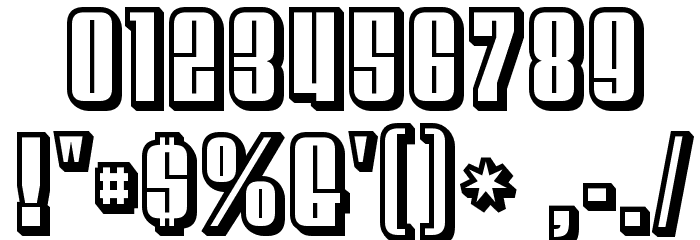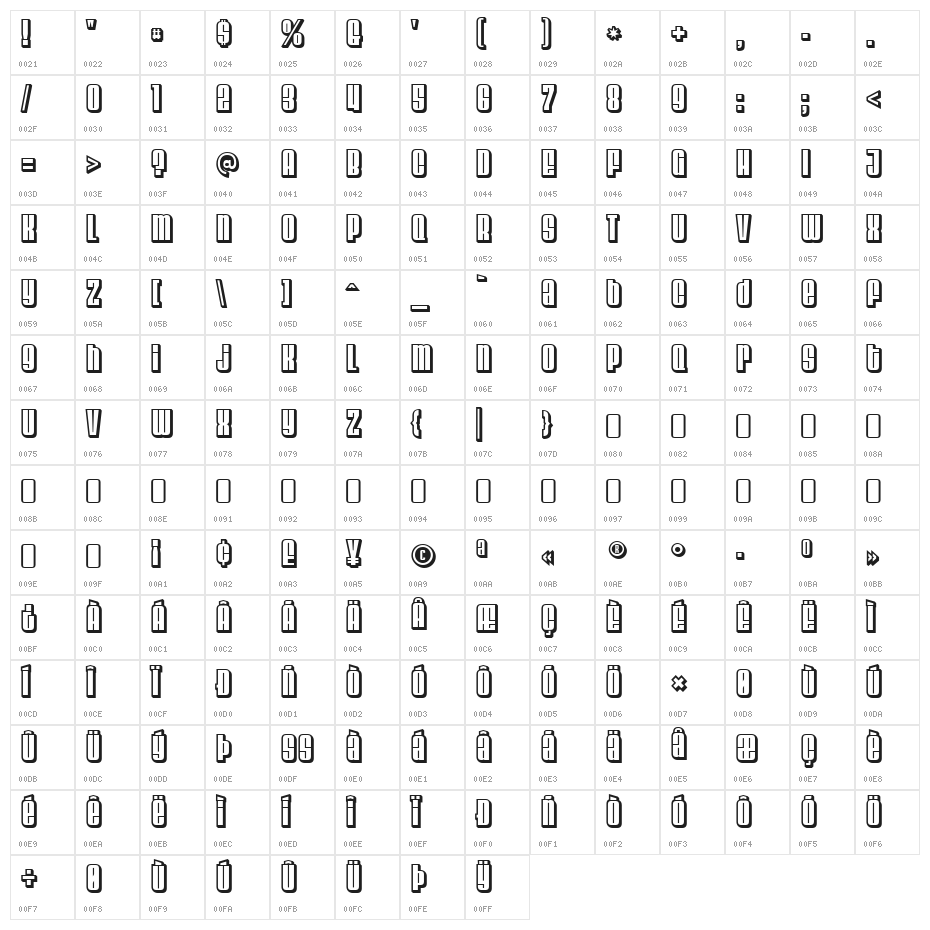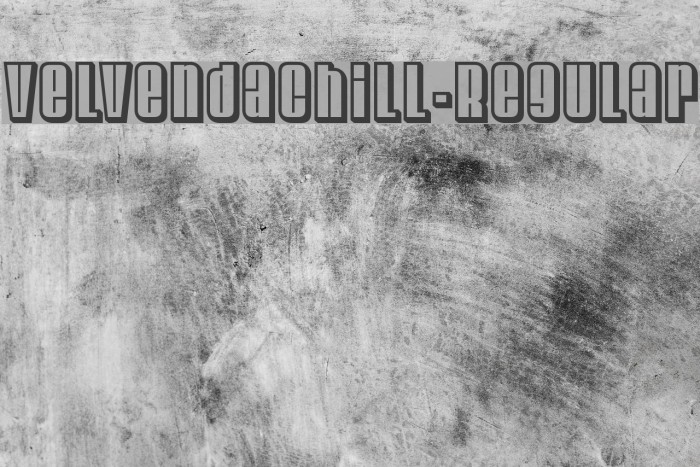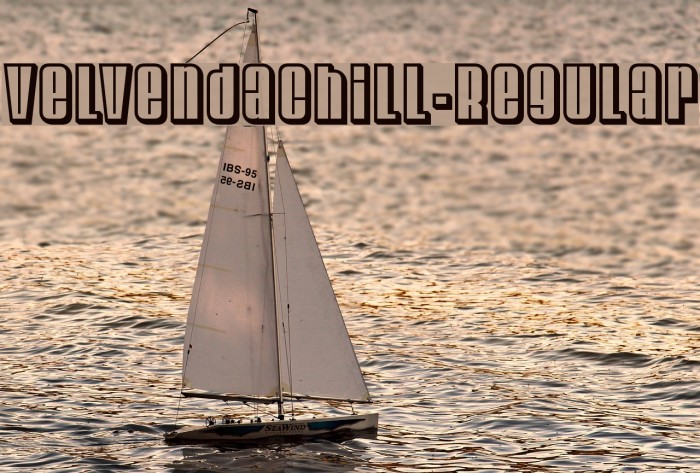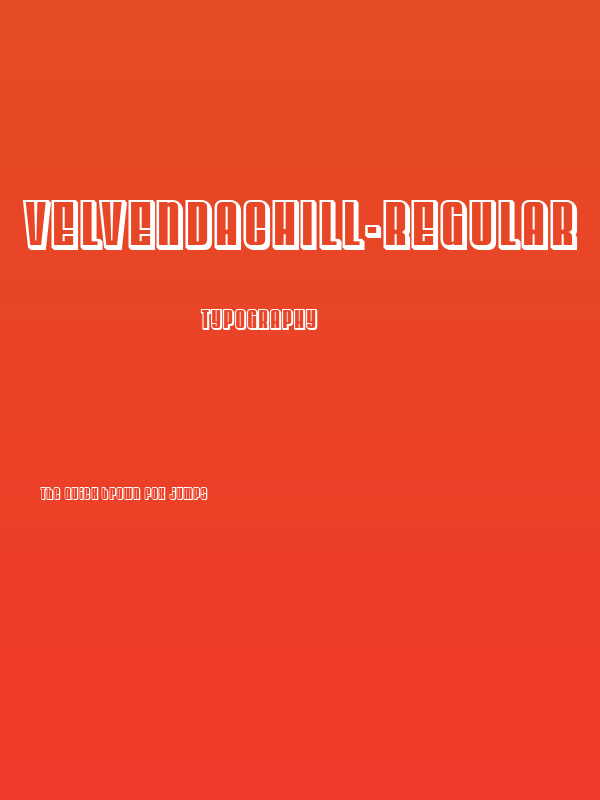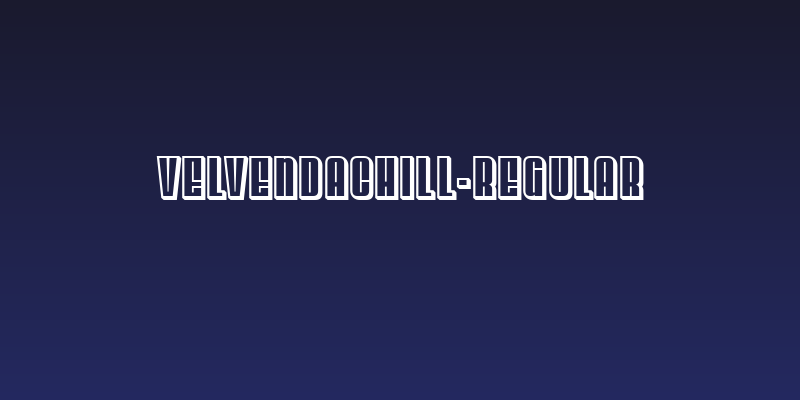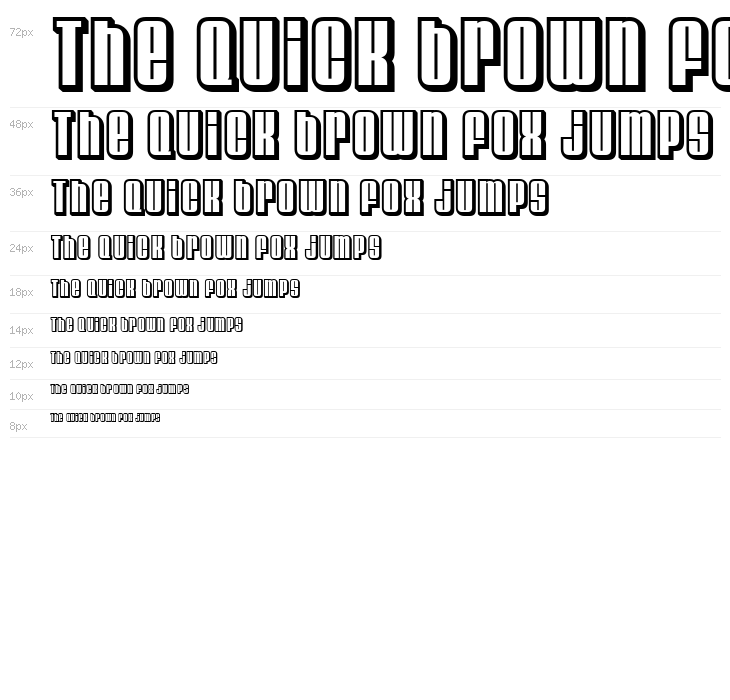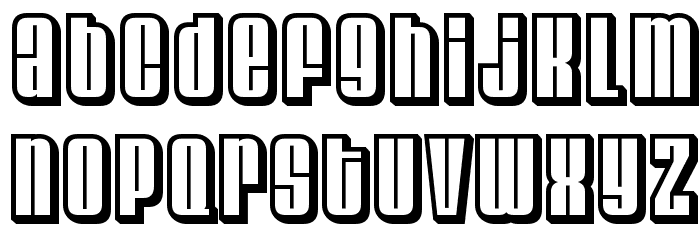
VelvendaChill-Regular Font
VelvendaChill-Regular Description
This font features a bold, outlined style with a strong presence. The characters are uppercase and lowercase letters, numbers, and a variety of special symbols. Each letter is designed with a thick outer border that gives it a three-dimensional effect, making it stand out prominently. The inner space of the letters is filled with a solid color, creating a striking contrast with the outline. This font is ideal for creating eye-catching headlines or titles that demand attention. The overall design is modern and dynamic, suitable for projects that require a bold and impactful typeface.
| Proposed Projects | Ideal for posters, logos, headlines, and any design requiring a bold statement. |